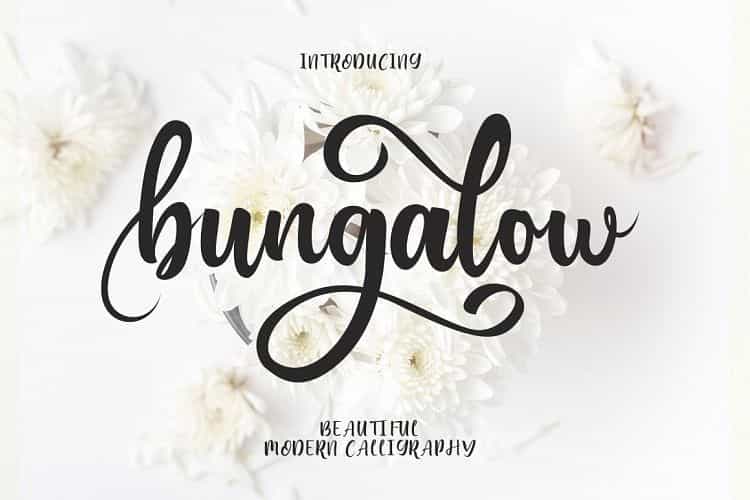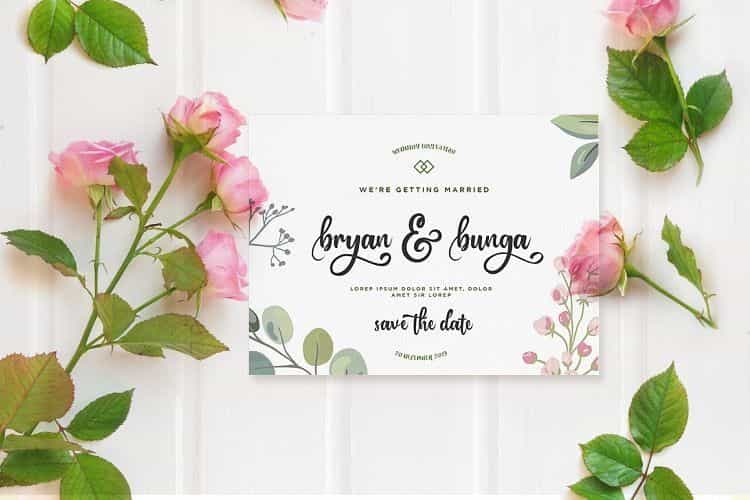
Bungalow is a simple, elegant, modern calligraphy typeface with a dancing baseline. This hand-lettered script is perfect for any of your designs, wedding invitations, brand identity, cards, and quotes. WHAT’S INCLUDED Bungalow includes standard alphabets, both lowercase and uppercase, numerals, punctuations, Latin and non-Latin characters, and ligatures.